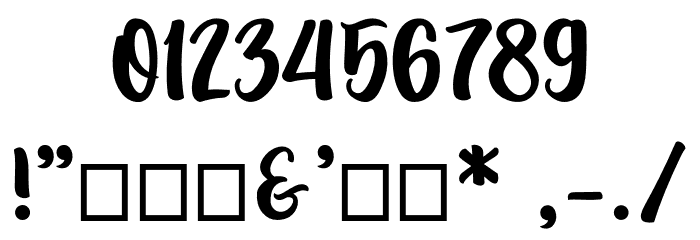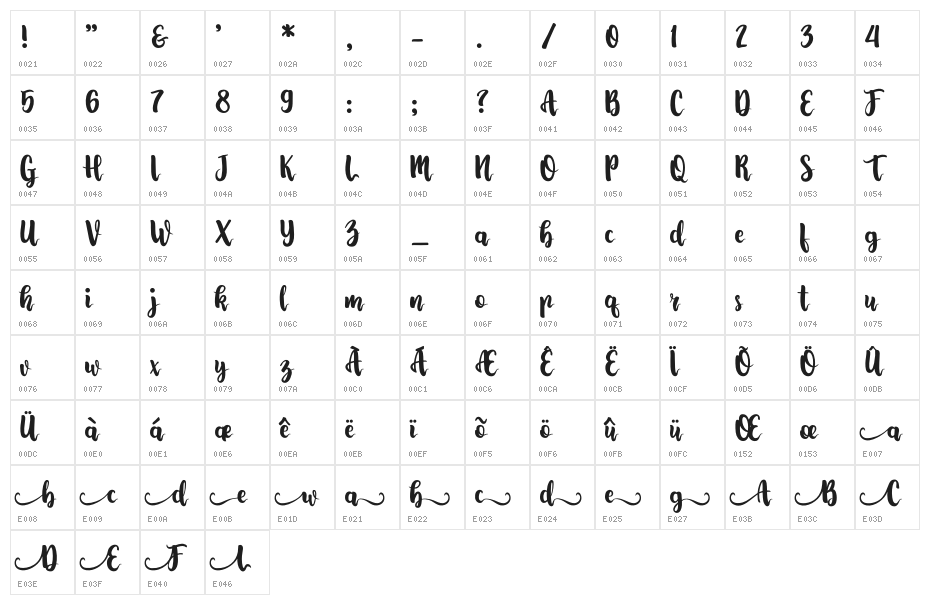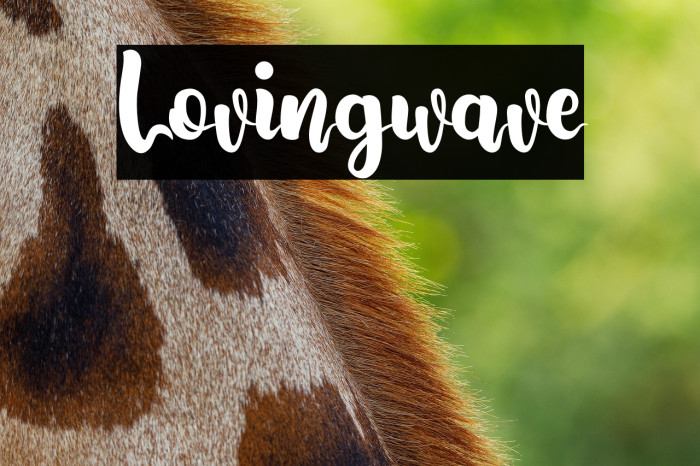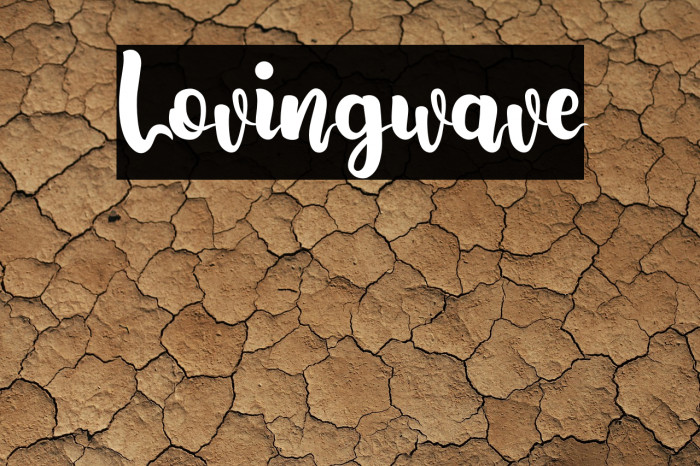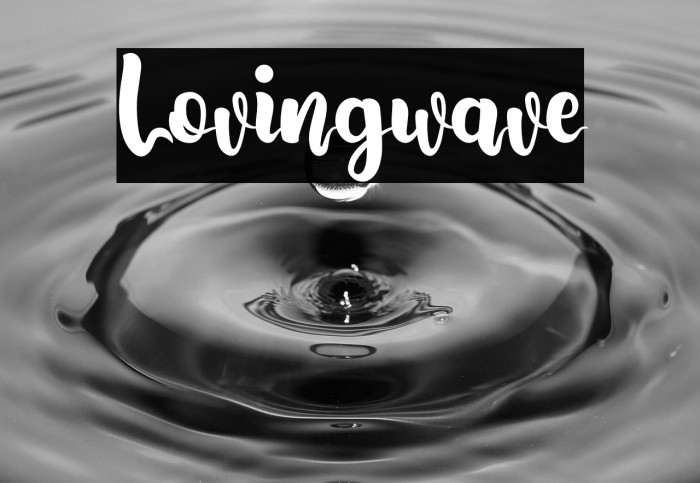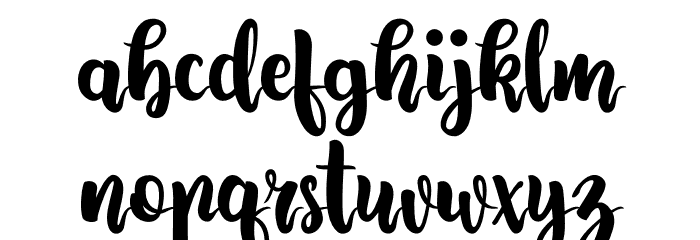
Lovingwave Font
Lovingwave Description
This font features a bold and flowing script style, characterized by its smooth, cursive strokes and elegant, connected letters. The uppercase letters are prominent and expressive, while the lowercase letters maintain a consistent flow, enhancing readability. The numbers and special characters are designed to complement the overall script style, maintaining the same fluidity and boldness. This font exudes a sense of warmth and creativity, making it ideal for projects that require a personal touch.
| Proposed Projects | Ideal for wedding invitations, greeting cards, branding, and logo design where a personal, elegant touch is desired. |